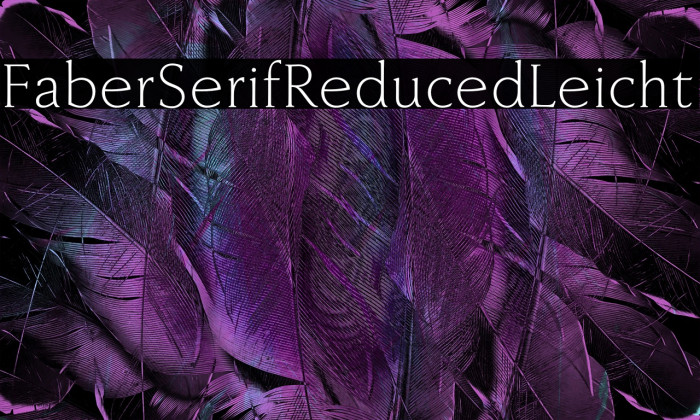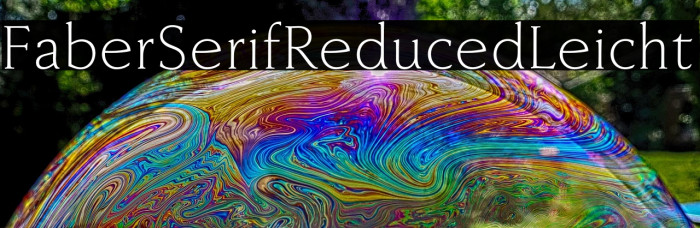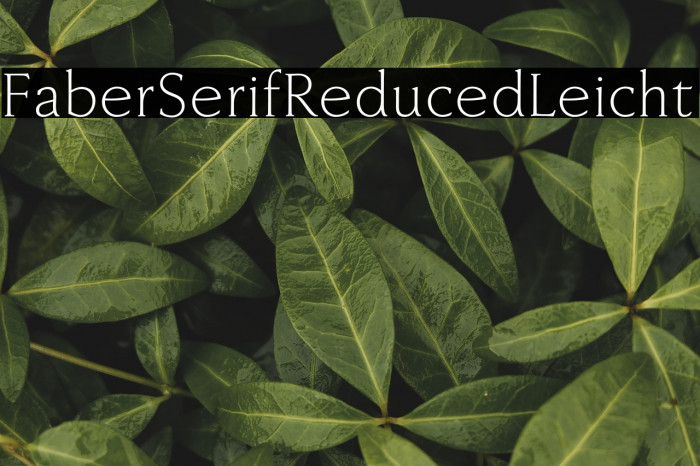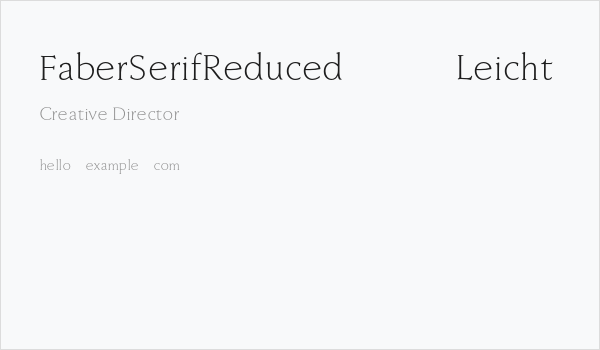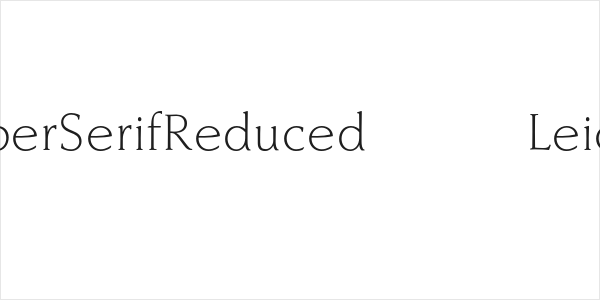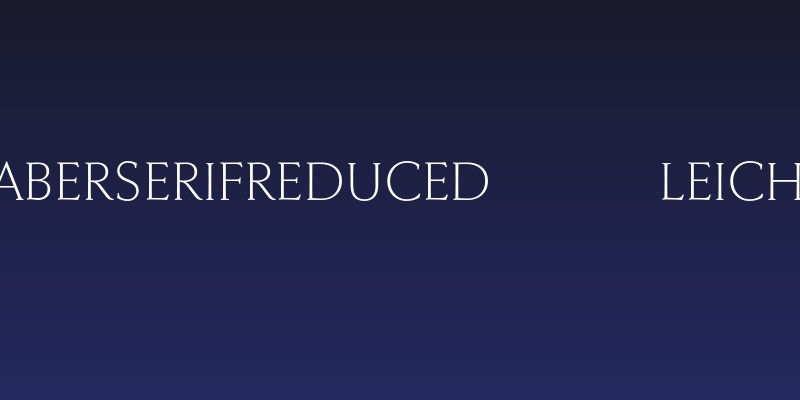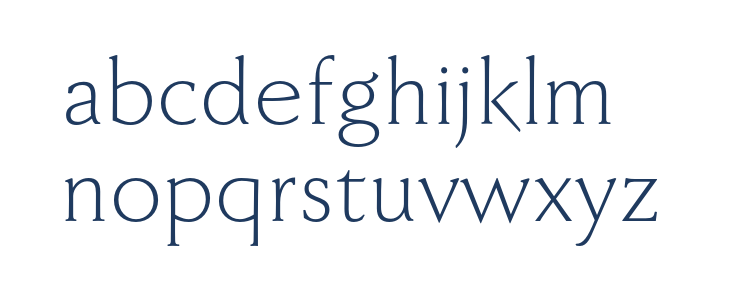
FaberSerifReduced-45Leicht Font
FaberSerifReduced-45Leicht Description
This serif font exudes a classic elegance with its clean and refined lines. The characters are well-proportioned, featuring subtle serifs that add a touch of sophistication without overwhelming the overall design. The uppercase letters are tall and commanding, while the lowercase letters maintain a harmonious balance with gentle curves. The numerals are clear and legible, making them suitable for a variety of applications. Special characters are thoughtfully designed, ensuring consistency across the typeface. This font's timeless appeal makes it versatile for both traditional and modern projects.
| Use Case | Body text, Headlines, Editorial design |
| Proposed Projects | Ideal for book typesetting, formal invitations, branding, and editorial design. |